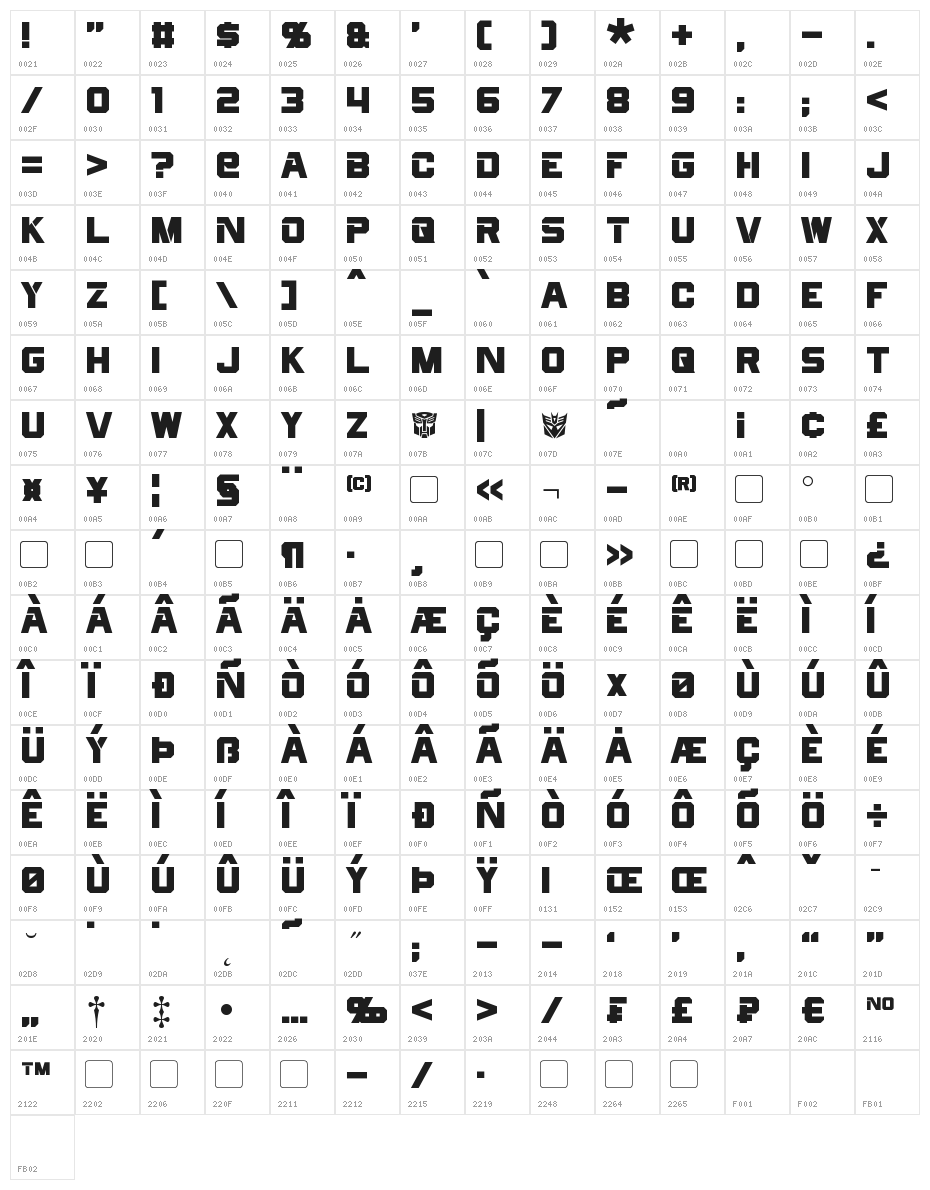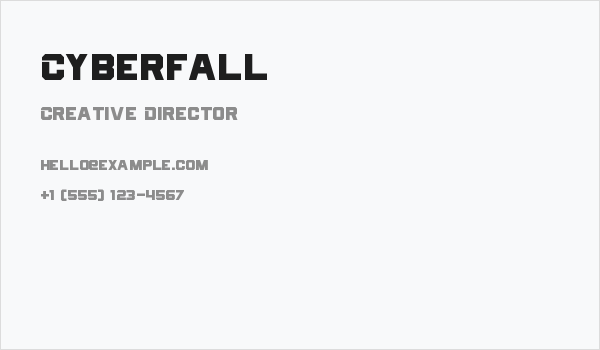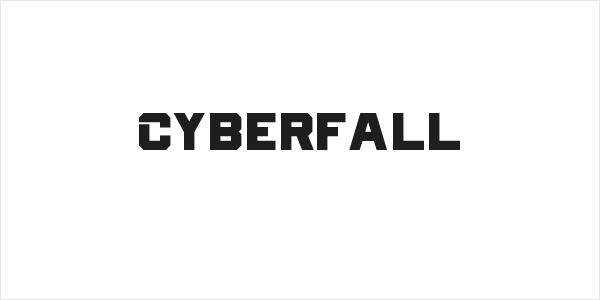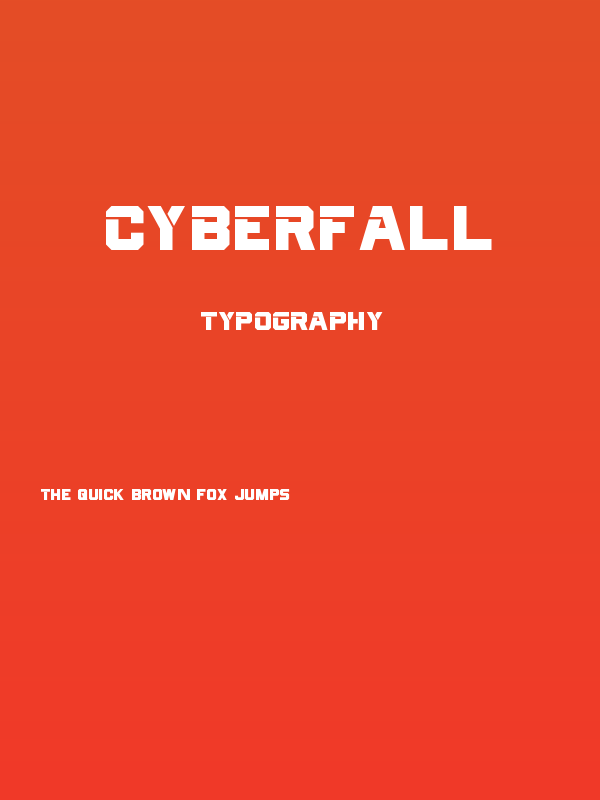
Cyberfall Font
Cyberfall Description
This font features a bold, geometric design with a futuristic and industrial aesthetic. The characters are constructed with sharp angles and straight lines, giving it a strong and assertive presence. The uppercase letters are particularly striking, with a blocky appearance that suggests strength and modernity. The numbers and special characters maintain this cohesive style, ensuring consistency across all elements. The font's design is reminiscent of digital or cybernetic themes, making it ideal for projects that require a modern, tech-savvy look.
| Proposed Projects | Ideal for technology branding, video game titles, sci-fi movie posters, and digital media. |